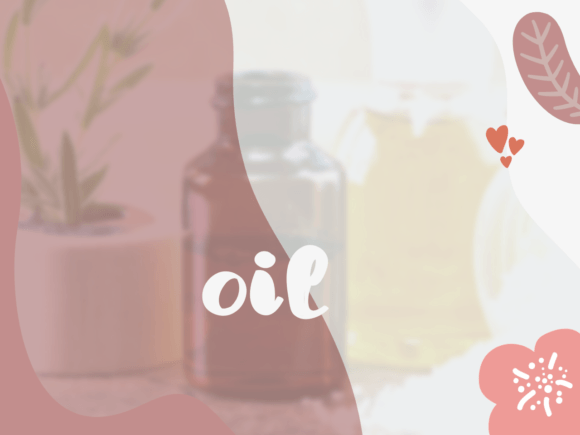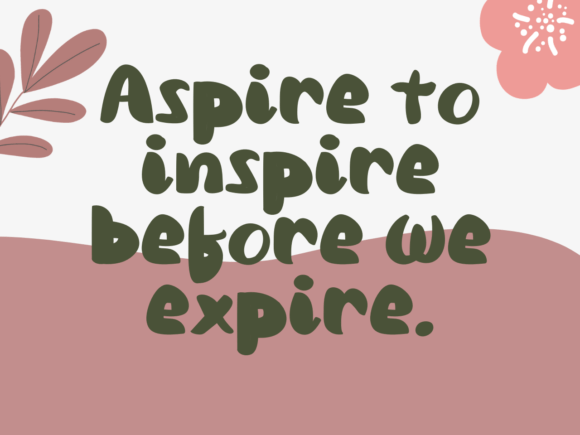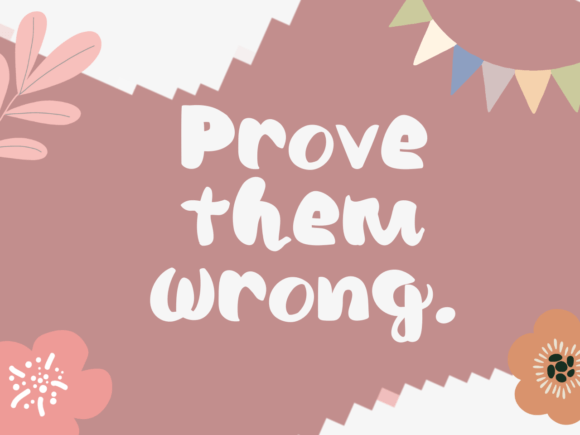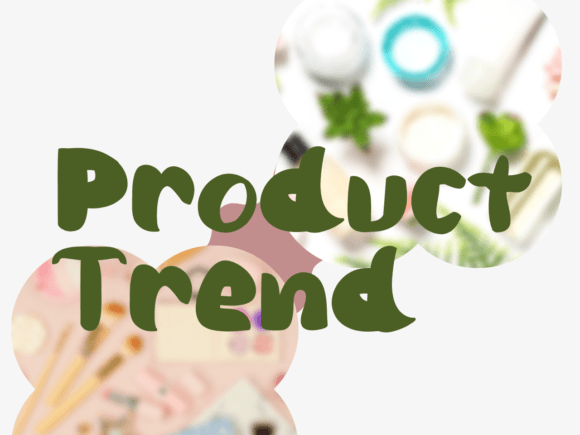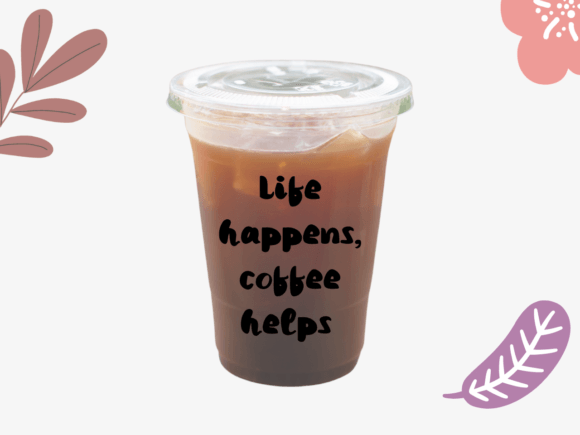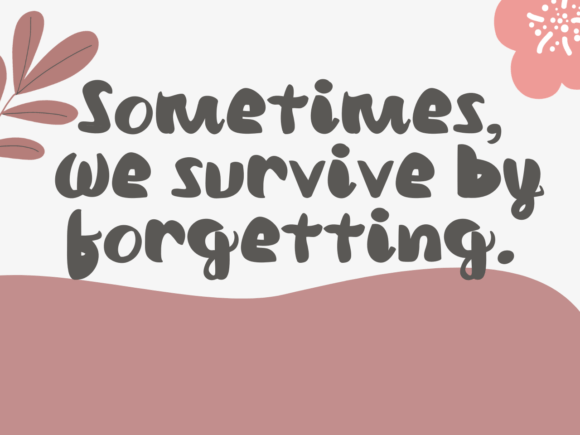
Introduction to Malka Font
Character design work from the concept of hand writing by applying different brushes.
Make the font design work different Have their own uniqueness this font design can be used Increase the prominence of your work, whether you use it in a letter.